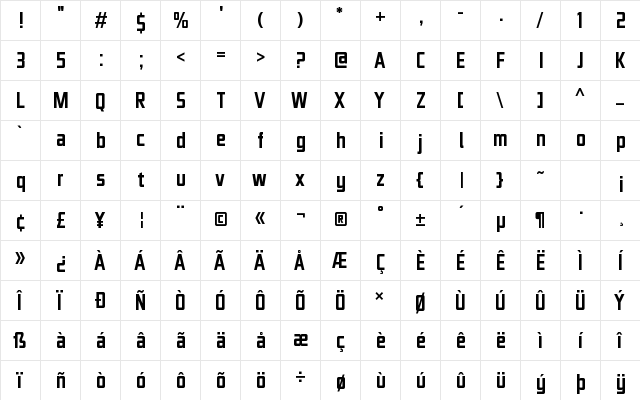
Aire Exterior Regular
| Designer | Jayvee Enaguas (HarvettFox96) |
Design Context for Aire Exterior Typeface
Aire Exterior is a composed and adaptable typeface that performs quietly and consistently across a wide range of design contexts.